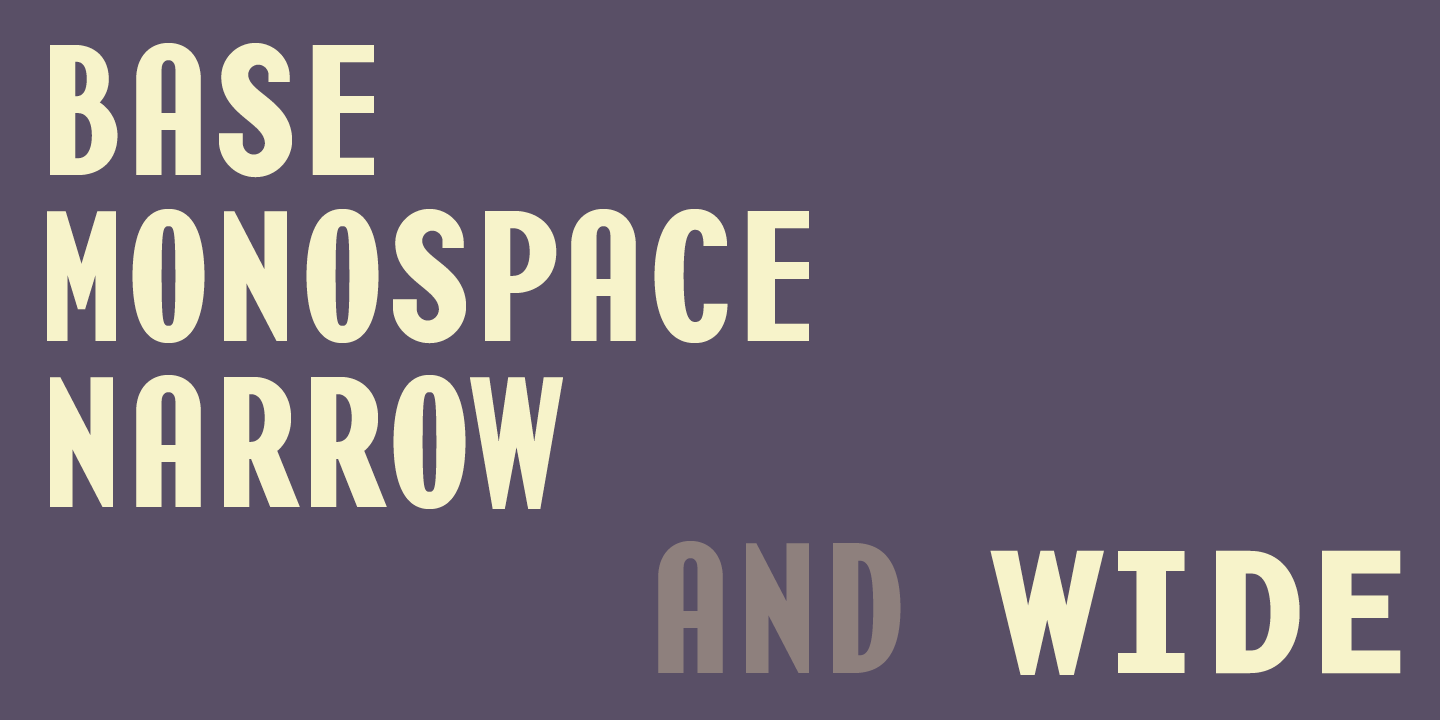
Base Monospace Font is an excellent choice for a wide array of applications, including coding environments, technical documentation, minimalist website designs, and even unique branding projects that require a clean, structured aesthetic. Its uniform character width ensures perfect alignment, making it ideal for presenting data, code snippets, and any content where readability and precise vertical alignment are paramount.
What makes Base Monospace Font so exciting is its unwavering commitment to clarity and precision. In a digital world often filled with overly ornate or difficult-to-read typefaces, Base Monospace Font stands out with its no-nonsense design. Each character is crafted with an emphasis on legibility, reducing eye strain during long coding sessions or extensive document review. Its robust and straightforward appearance lends an air of professionalism and reliability to any project. This font isn't just about functionality; it's about making a statement of clarity and order. It empowers designers and developers to create interfaces and documents that are not only beautiful but also incredibly efficient and user-friendly.
The Base Monospace Font family typically includes a range of weights and styles to provide maximum versatility. You can expect to find options such as Regular, Bold, Italic, and potentially even Light or Medium variations, each maintaining the distinctive monospace structure. These different weights allow for hierarchical organization within your text, letting you emphasize certain elements while maintaining the cohesive look of the font family. For those seeking the perfect blend of form and function, the Base Monospace Font Free Download offers an unparalleled starting point.